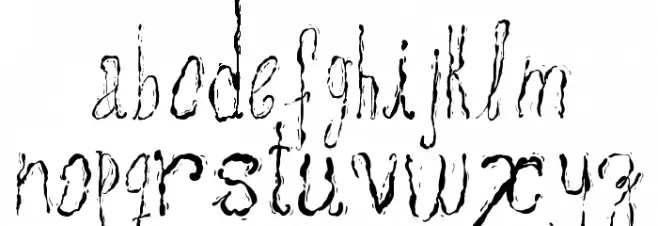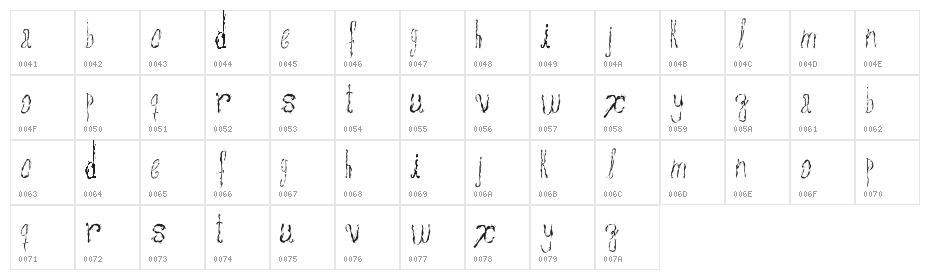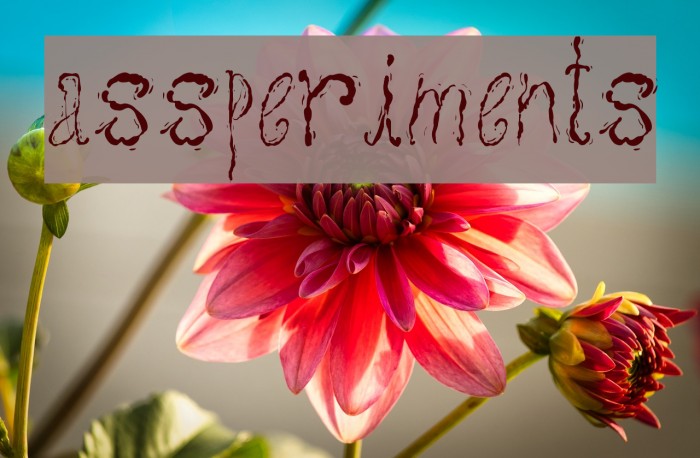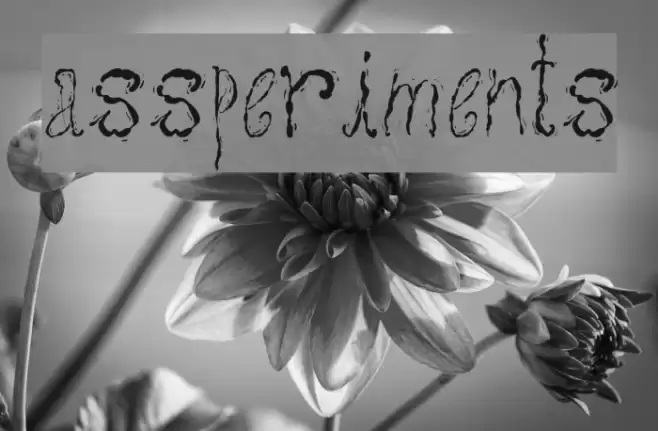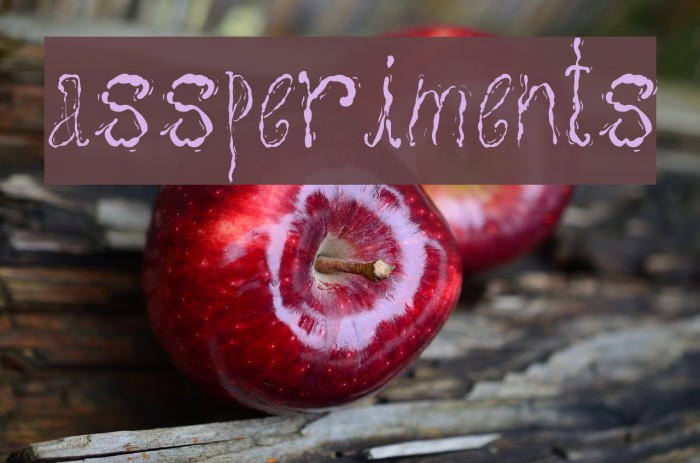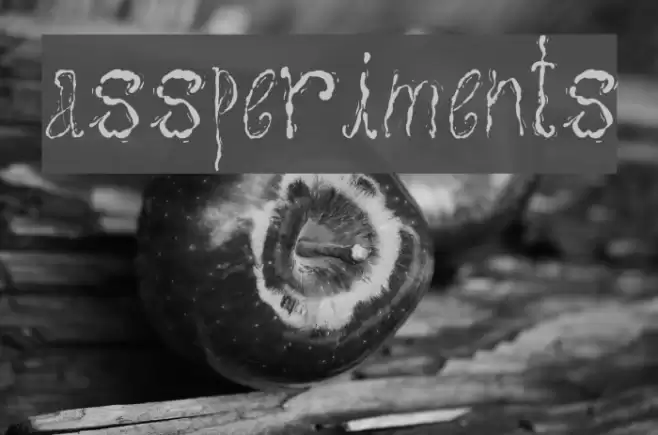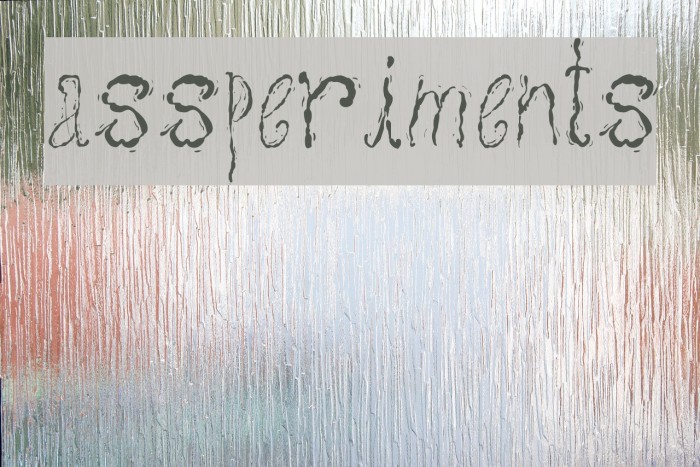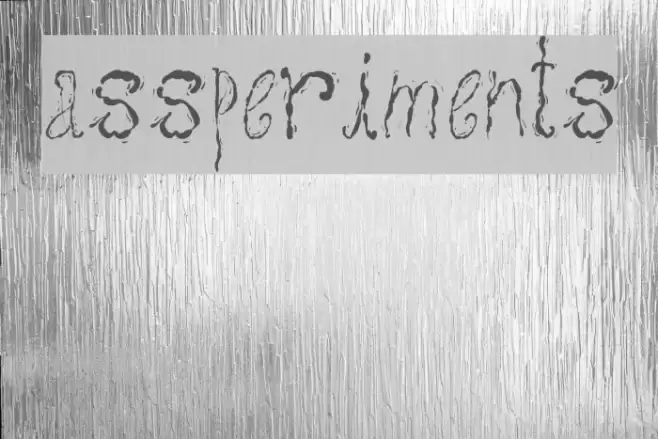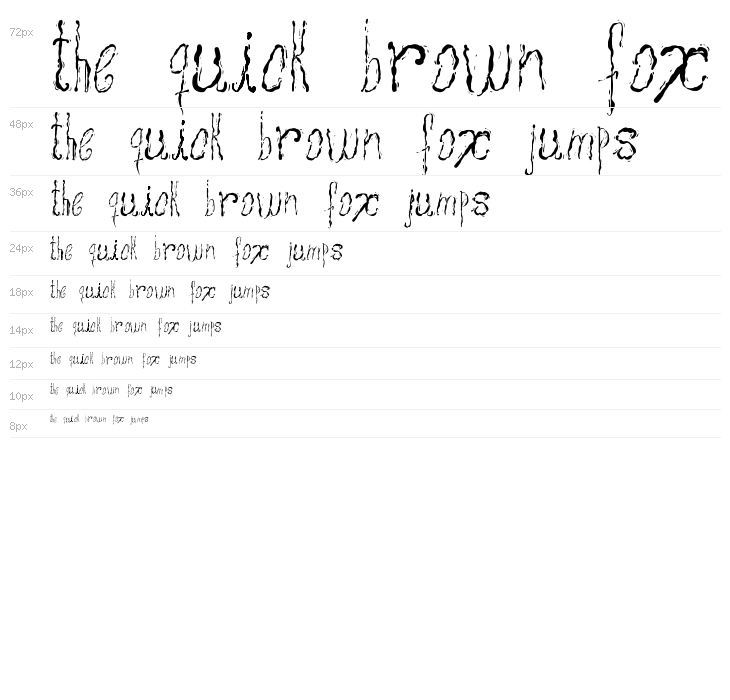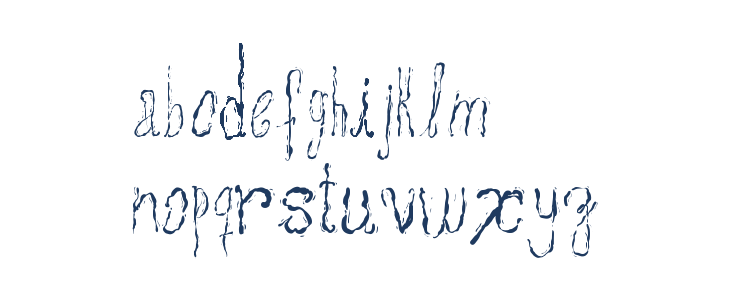
assperiments Font
assperiments Description
This font features a highly decorative and artistic style, characterized by its irregular, hand-drawn appearance. Each letter is uniquely crafted with a distressed, textured effect that gives it a grungy and organic feel. The strokes vary in thickness, creating a dynamic and visually engaging look. The overall design is reminiscent of ink or paint splatters, adding to its raw and expressive nature. This font is ideal for projects that require a bold and unconventional aesthetic, such as album covers, posters, or artistic branding. Its distinctive style makes it stand out, capturing attention with its creative flair.
| Proposed Projects | Ideal for album covers, posters, artistic branding, and creative projects. |